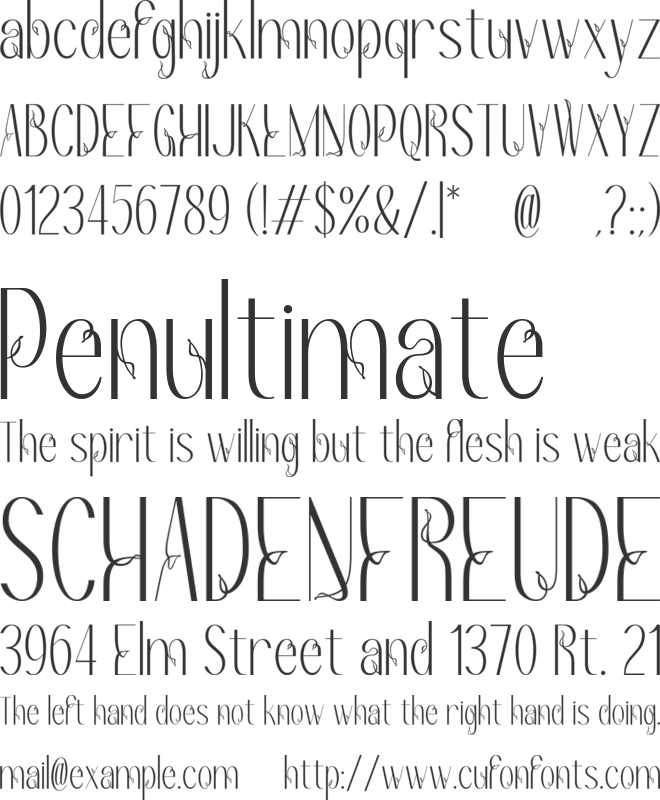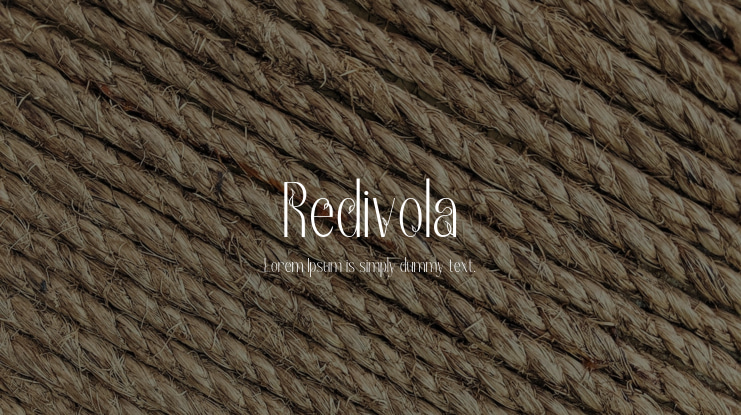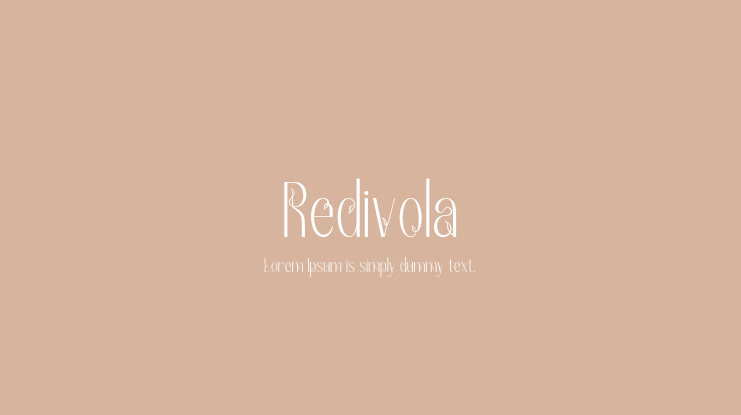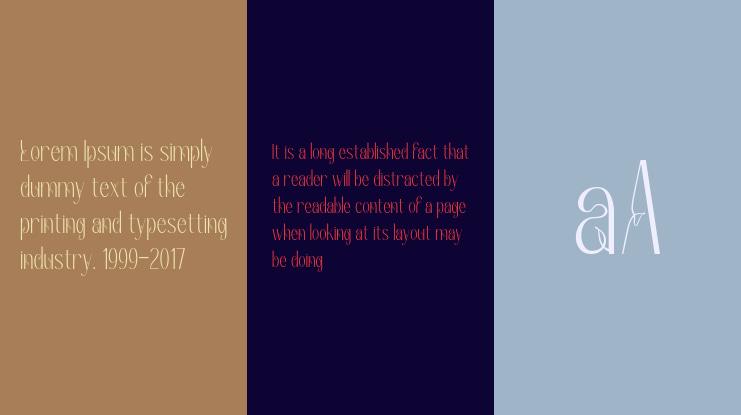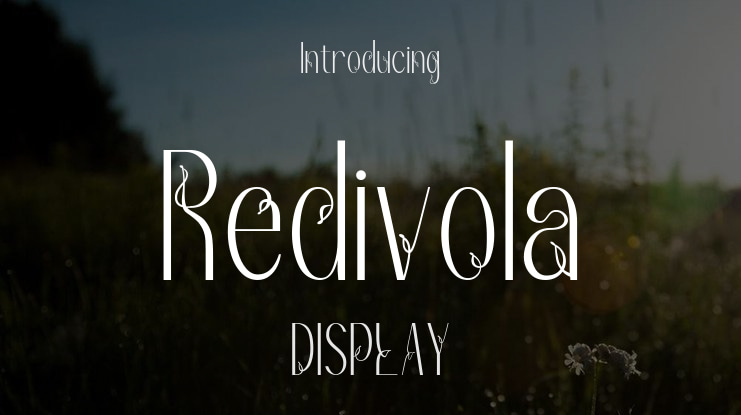
Redivola Font
Ni Nyoman Puspa Dewi
Discover the refined charm of the Redivola typeface, where elegance meets innovation. Redivola is an exquisite sans serif font uniquely crafted with delicate, ribbon-like curves that bring an unmatched level of sophistication to your designs.